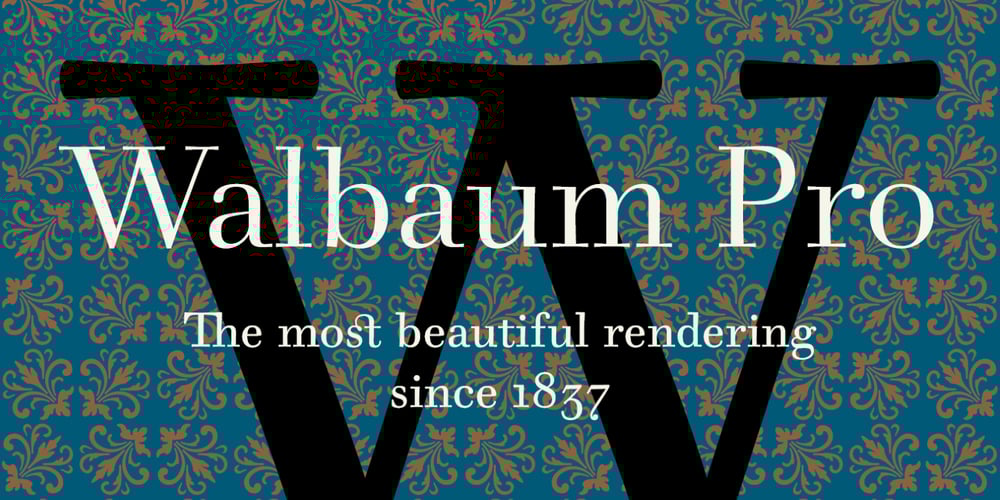
Walbaum 2010 Pro
Walbaum 2010 Pro font
Walbaum 2010 Pro Font Family was designed by František Štorm and published by Storm Type Foundry. Walbaum 2010 Pro contains 25 styles and family package options. Upon numerous demands of highly esteemed users of our fonts I decided to supplement the Walbaum type family by display and poster cuts. Because I obviously cannot compete with world’s renowned type foundries which already offer a number of renderings of forenamed typeface, I thought proper to decline a bit from the original Walbaum’s design, strictly speaking, from the apprehension we commonly keep about this typeface. Therefore I didn’t set forth the way of modernizing (shame!), but rather the opposite direction: towards an analysis of the original neo-classical intention. I took the 10-point character, magnified it enormously and cut off progressively all the optically thickened bobbles which raised by small-size correction. I ended up at the size of about 120 points, where it became obvious that any further thinning would lead to an undesired manneristic fragility. Resulting 8-member family Walbaum 120 is naturally usable in variety of sizes, as well as cuts marked “10” you can use, say, from 6 to 30 points. I only hope that mister Justus Erich won’t pull me by the ear when we’ll meet on the other side…